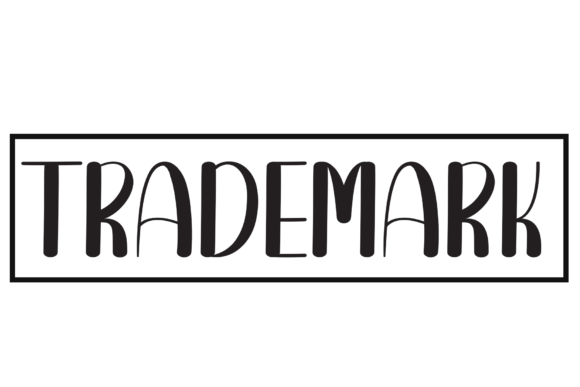
Welcome to our collection of fonts! We are excited to introduce you to our newest addition, the Trademark Font, created by the talented William Jhordy. If you're looking for a script font that is perfect for UI design, look no further than Trademark Font.
This font is a beautiful and playful handwritten script that is sure to elevate any project. The fresh and neat appearance of the Trademark Font is ideal for those who want to add a fun and friendly touch to their designs. Whether you are designing wedding invitations, greeting cards, or even social media graphics, this font is the perfect choice for adding personality to your work.
Not only is the Trademark Font visually appealing, but it is also highly versatile. It can be used in a variety of projects, from branding to packaging, and everything in between. It is the perfect choice for anyone looking to add a touch of creativity and uniqueness to their designs.
What makes the Trademark Font stand out is its ability to evoke emotion and create a personal connection with your audience. This font is more than just a set of characters; it is a reflection of your style and personality. It is a font that will make your designs stand out and leave a lasting impression on your audience.
Overall, the Trademark Font is a must-have for anyone looking to add a fun and friendly touch to their designs. With its sweet and playful appearance, it is perfect for those who want to create a personal connection with their audience. Download it today and see for yourself why it is quickly becoming one of the most popular fonts in our collection!